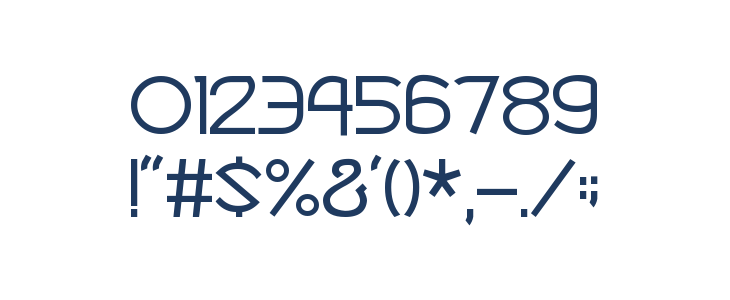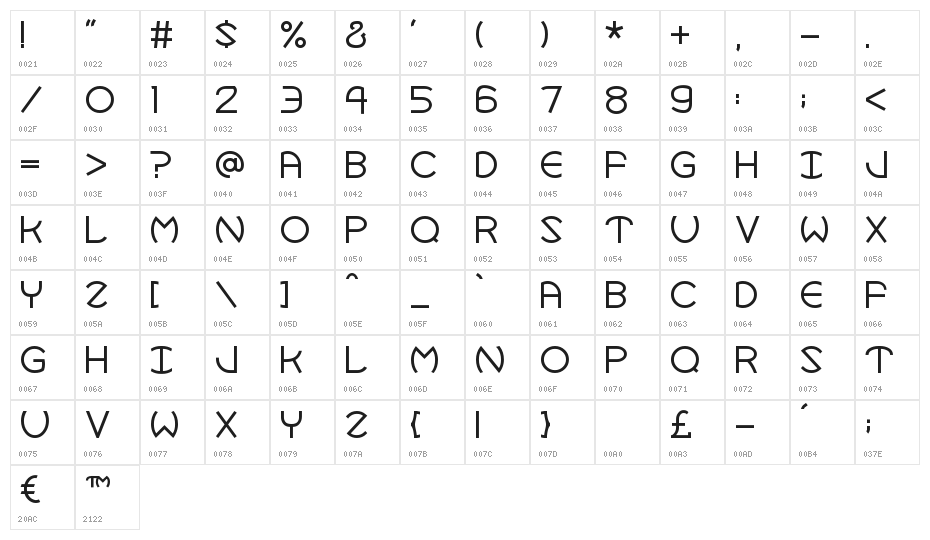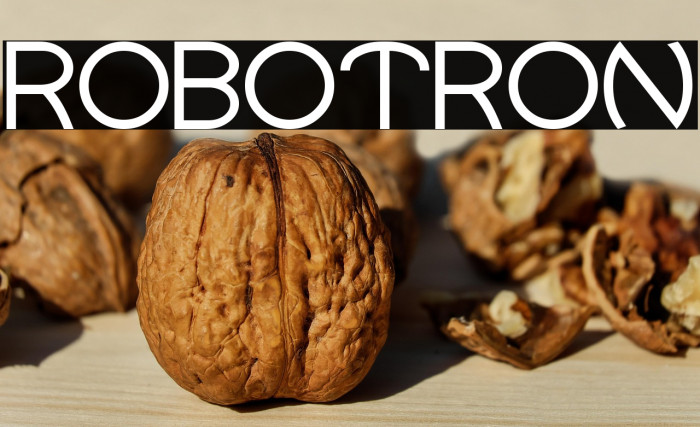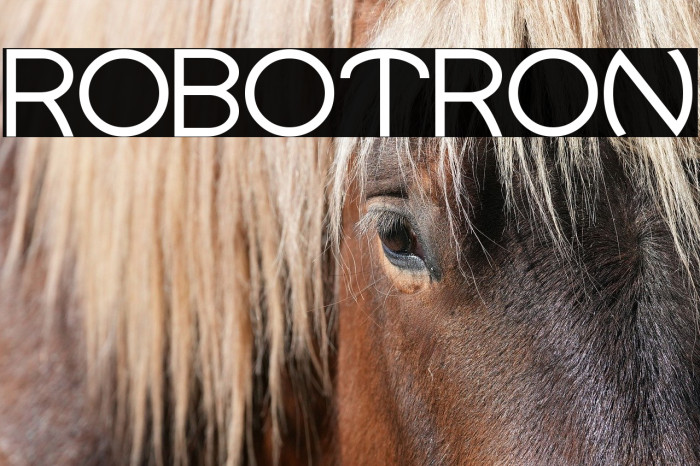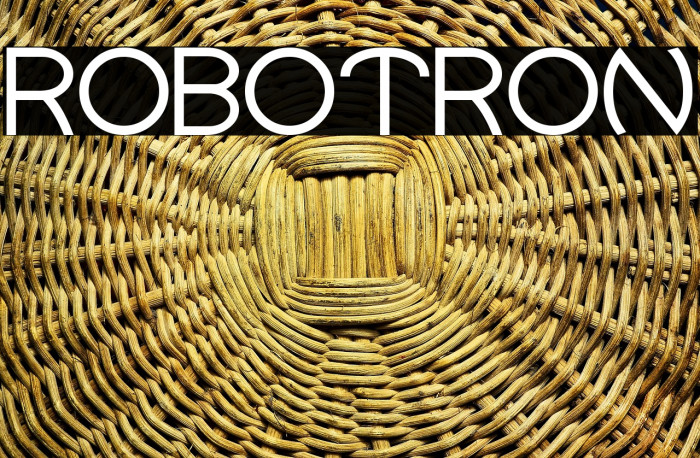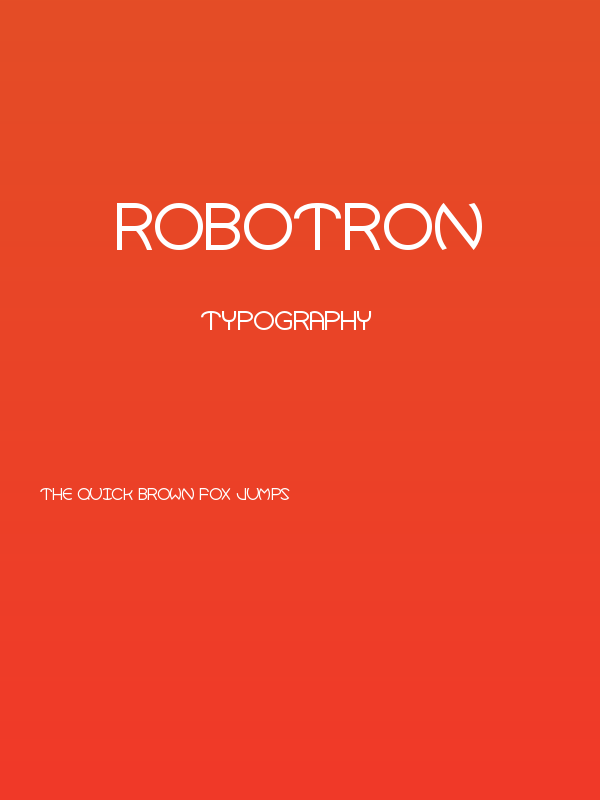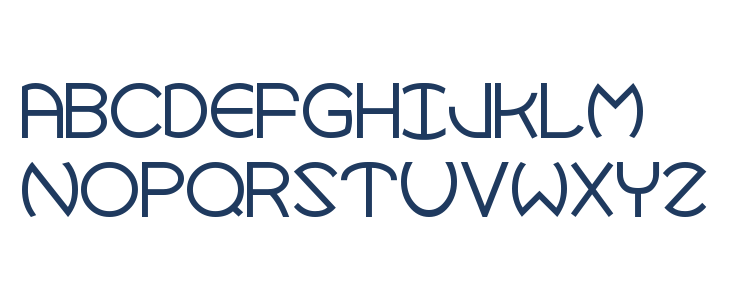
Robotron Font
Robotron Description
This font features a futuristic and geometric design, characterized by its clean lines and symmetrical shapes. The uppercase and lowercase letters maintain a consistent height, creating a uniform appearance. The circular and angular elements blend seamlessly, giving it a modern and technical feel. The numerals are bold and distinct, ensuring readability. Special characters are designed with the same geometric precision, making them stand out while remaining cohesive with the overall style. This font is ideal for projects that require a sleek and contemporary look.
| Proposed Projects | Ideal for technology branding, sci-fi movie posters, modern web design, and innovative product packaging. |